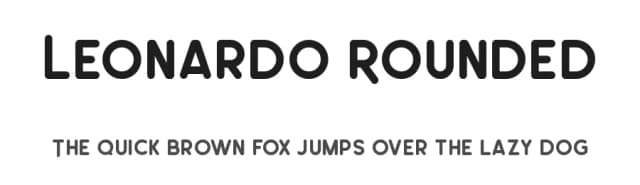
About Leo SemiRounded Font
Leo SemiRounded is a sans-serif font designed by Wahyu Rahmawan. It includes 199 glyphs, a bold weight, TTF (TrueType) format, and 210 languages. Leo SemiRounded is free to download; check the license details on this page before commercial use. Sans-serif fonts like Leo SemiRounded work best for clean body text, user interfaces, branding, and modern layouts.
Leo SemiRounded Font is a versatile sans-serif font that works for both headings and body text. Pair it with a contrasting serif or slab serif font to add visual interest and a clear distinction between titles and body copy.